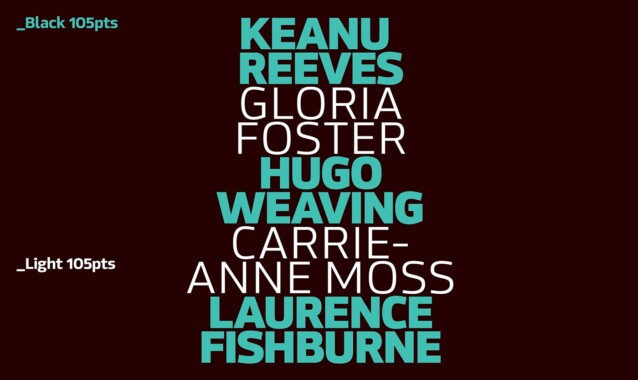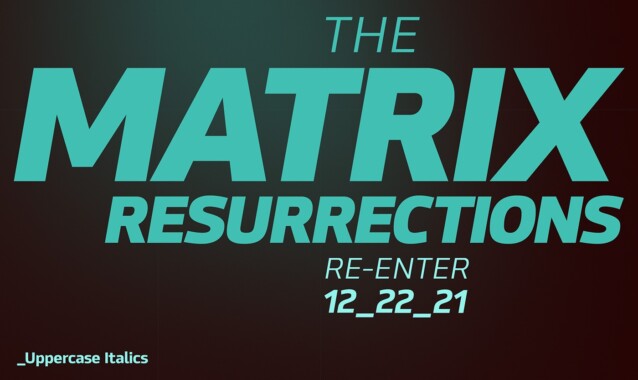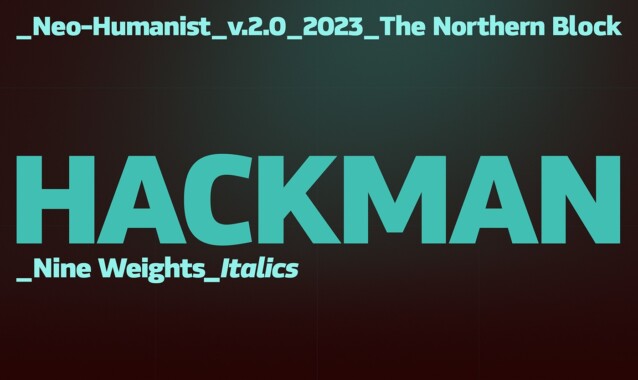
Hackman Font Family
Hackman Font is a sans-serif font family of 18 fonts, meticulously crafted with geometric shapes and inspired by modern sans-serif typefaces. Additionally, the design process includes careful work across six masters, giving a rhythmic balance throughout each weight. Hackman remastered to version 2.0 for improved OpenType features and usability across screen devices. Details include nine weights and italics, over 600 characters with alternative lowercase a and e. Open-type features include six variations of numerals, numerators, denominators, superiors, inferiors, ligatures, and language support covering Western, South and Central Europe.